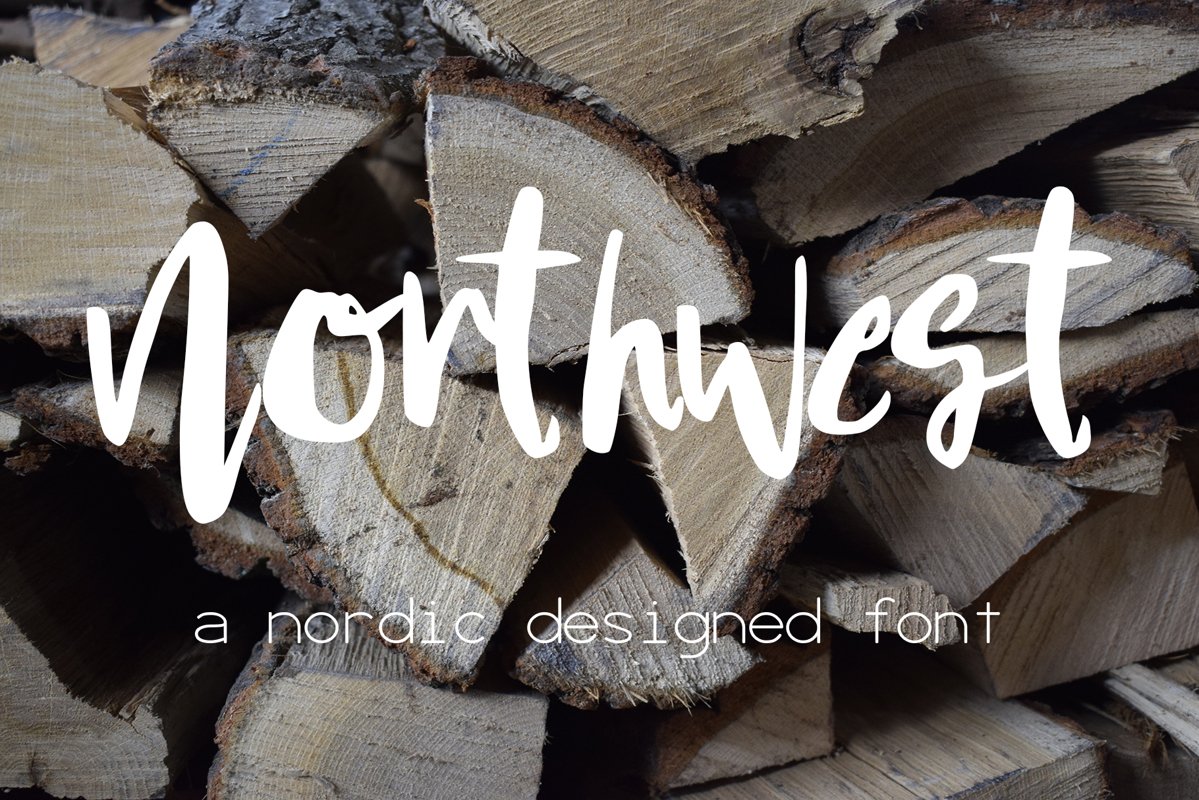
Northwest Font
Introducing Northwest, a nordic designed handwritten font.?
A lovely script with elegant curves. Perfect for any calligraphic and logo designs, birthday and wedding invitations.
Northwest font contains upper & lowercase characters, numbers and punctuations.